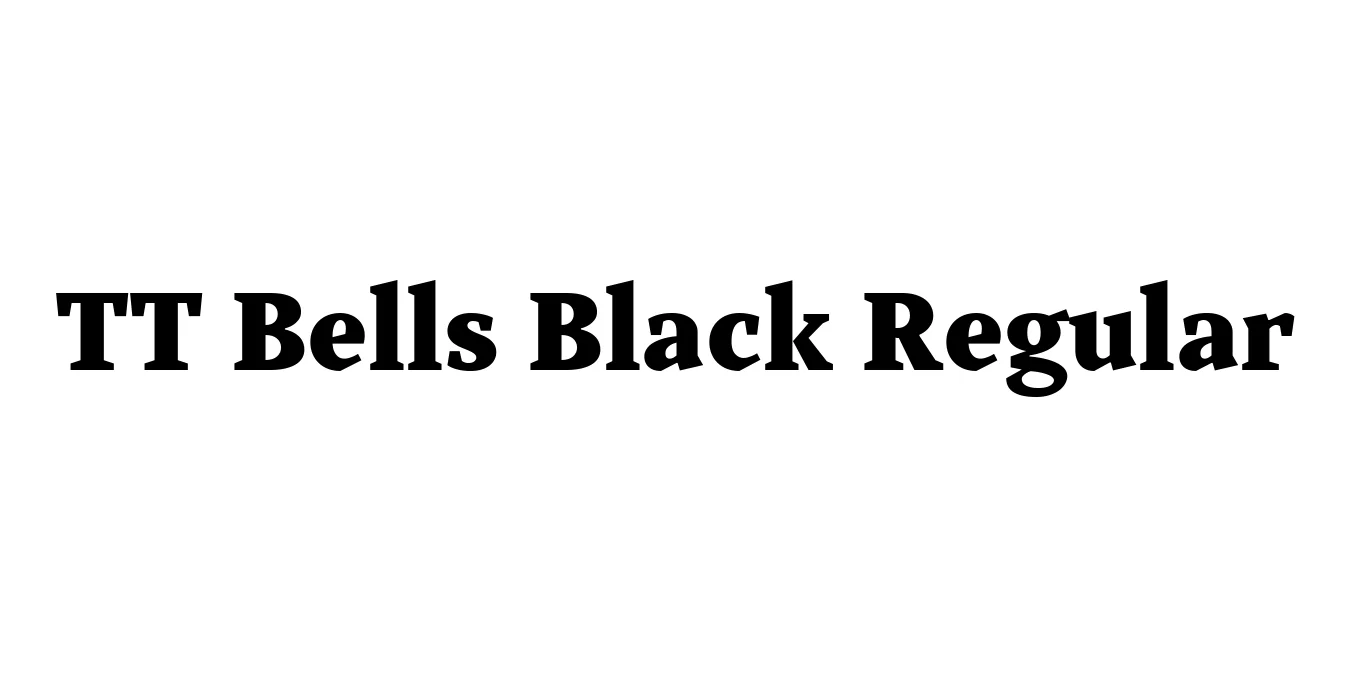
TT Bells Black Regular
Designed by TypeType Team (Ivan Gladkikh, Marina Khodak)
TT Bells Black Regular is a sophisticated and high-contrast serif typeface designed by the TypeType foundry. It represents a modern interpretation of the classic Old Style serifs, blending historical elegance with contemporary digital precision. The Black weight is particularly striking, offering a heavy visual weight that emphasizes its sharp terminals and graceful curves, making it ideal for designers who need a font that speaks with authority and refinement.
Developed with meticulous attention to detail, TT Bells features a wide range of characters and OpenType features that enhance its versatility. Its structure is built on the foundations of traditional book typography, yet it has been optimized for high-resolution screens and luxury print applications. Whether used for a minimalist logo or a complex editorial layout, this typeface provides a sense of timeless beauty and professional craftsmanship.
TT Bells Black Regular Best Uses
High-impact headlines in fashion and lifestyle magazines.
Logo designs for luxury boutiques, perfumes, and premium services.
Elegant hero sections and large statement typography on landing pages.
Book covers, exhibition posters, and sophisticated wedding invitations.